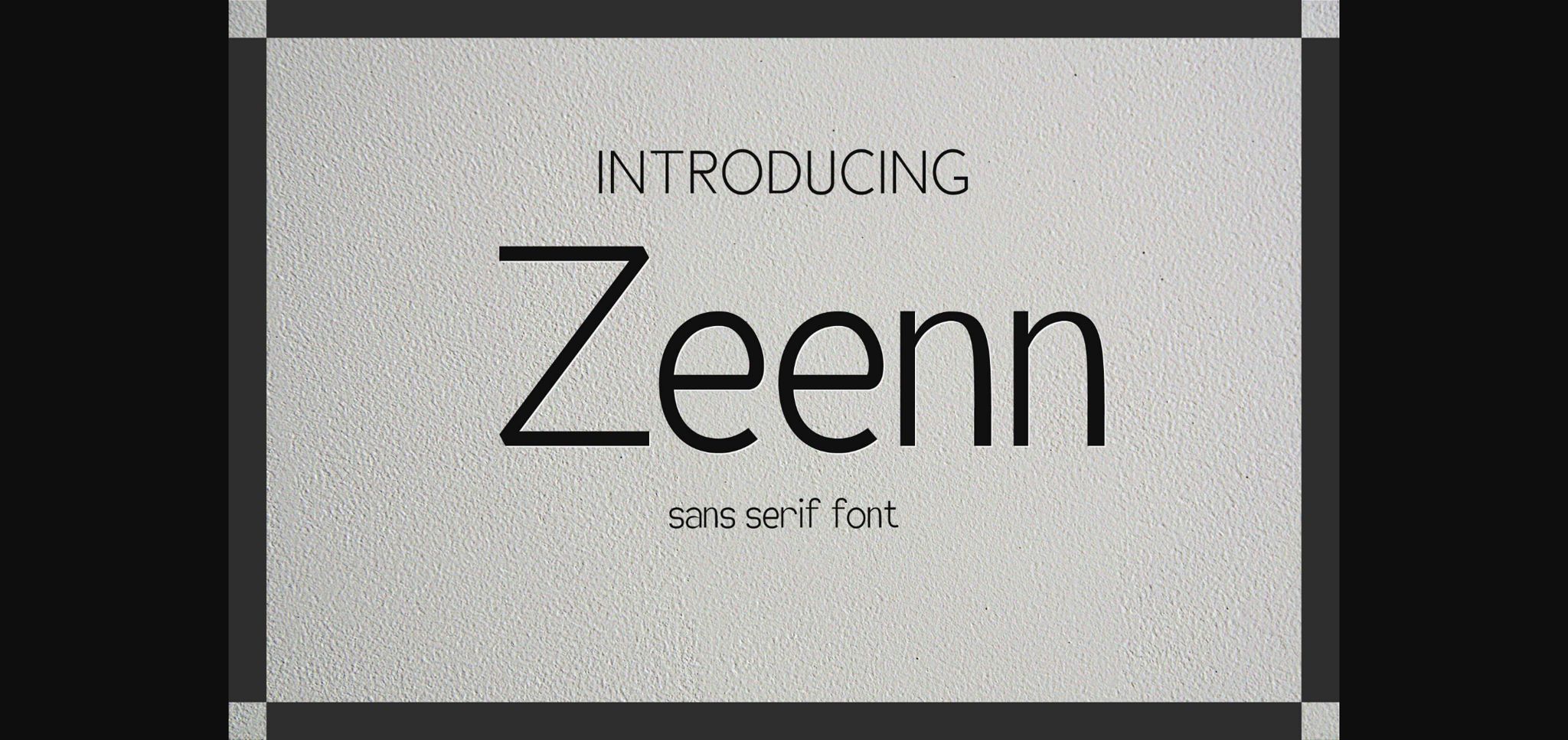
About Zeenn Font
Zeenn is a sleek sans serif font characterized by its modern, minimalist design. With clean lines and balanced proportions, it exudes a timeless elegance that’s perfect for a wide range of applications, from branding to digital interfaces. Its versatility and legibility make Zeenn a top choice for contemporary design projects.